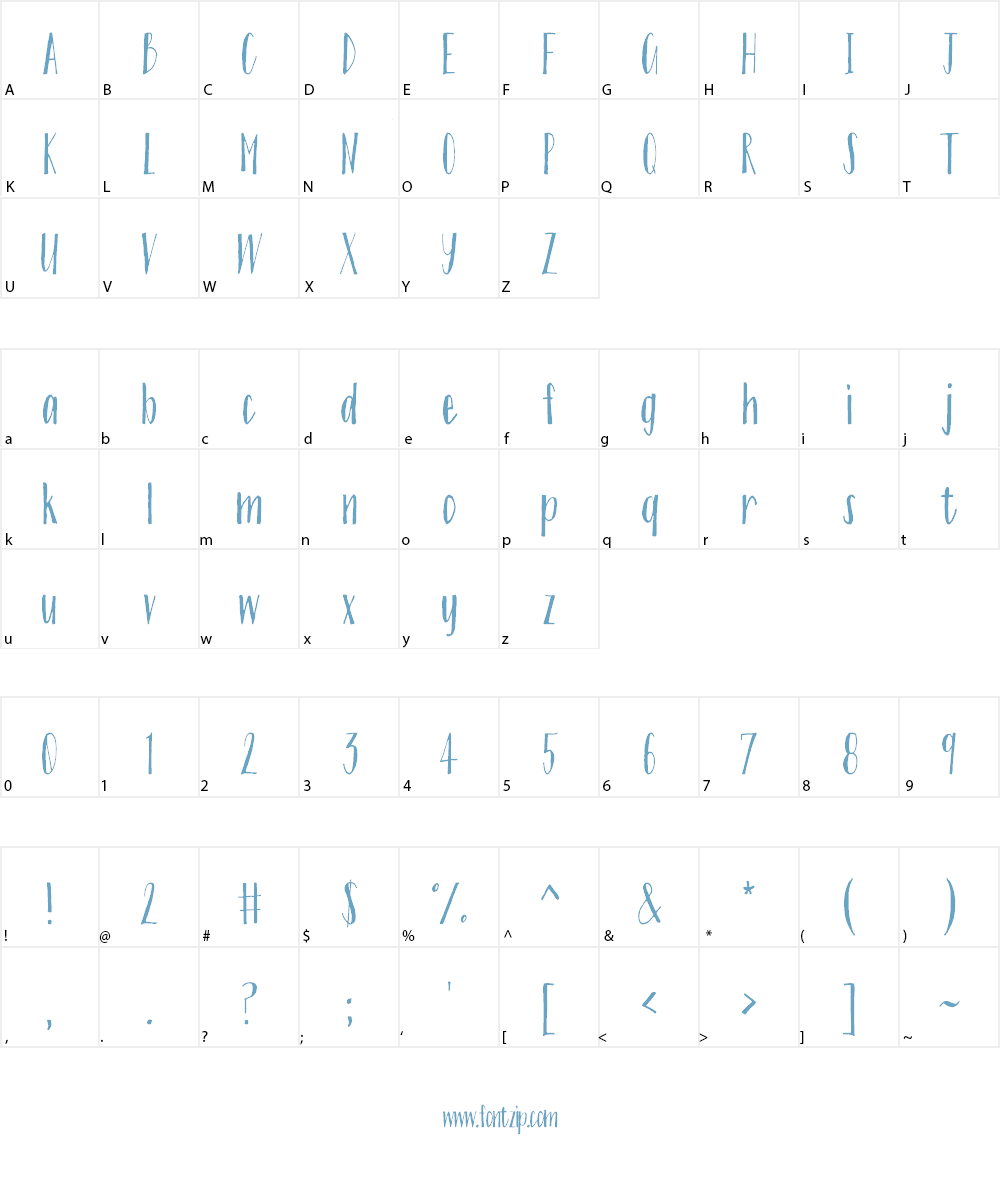
Sadie Sans was designed by hand and is affectionately named after my dog. It is great for logos, headings, posters etc. Download includes a couple of wreath graphics for logo designs.